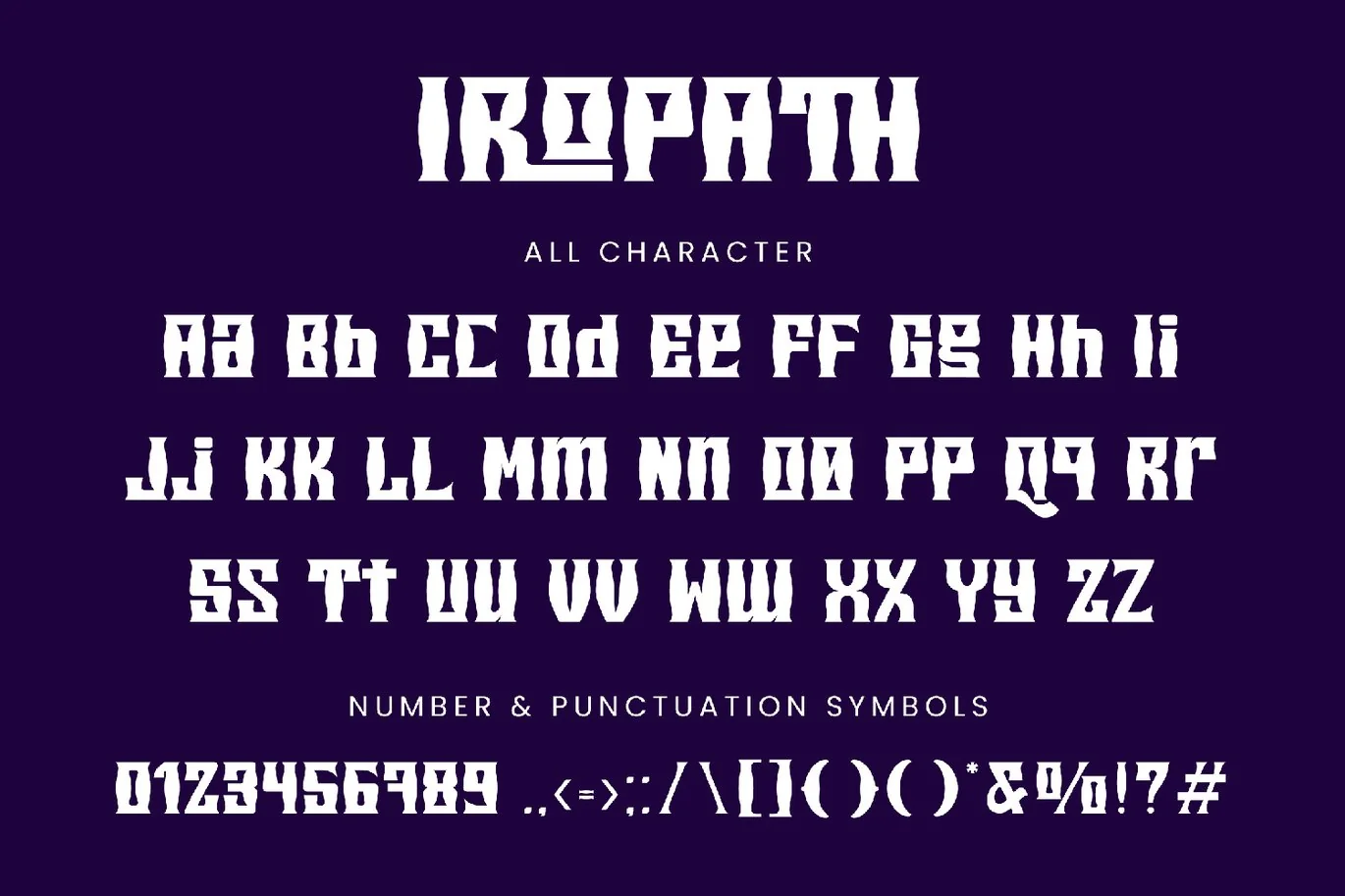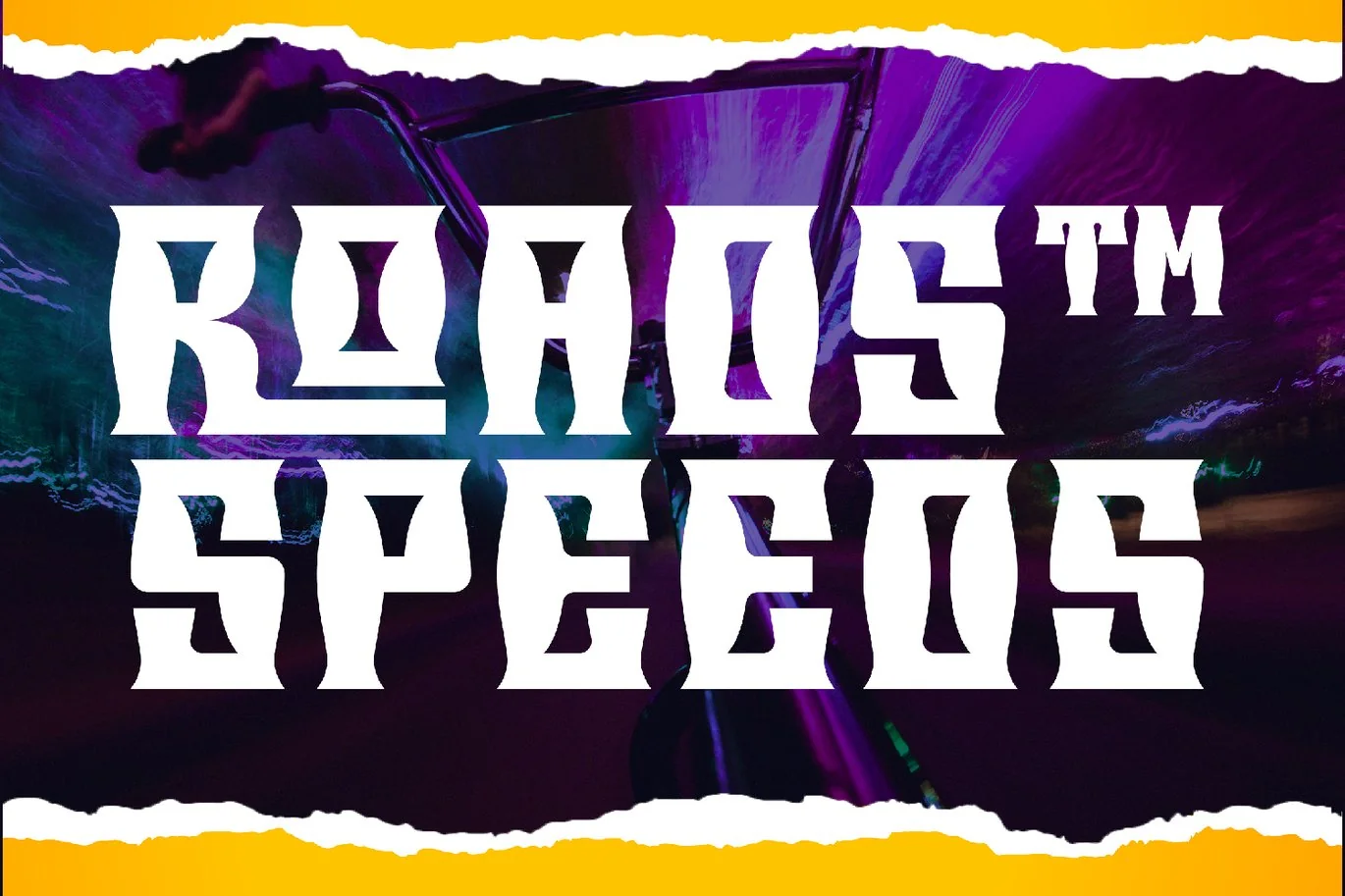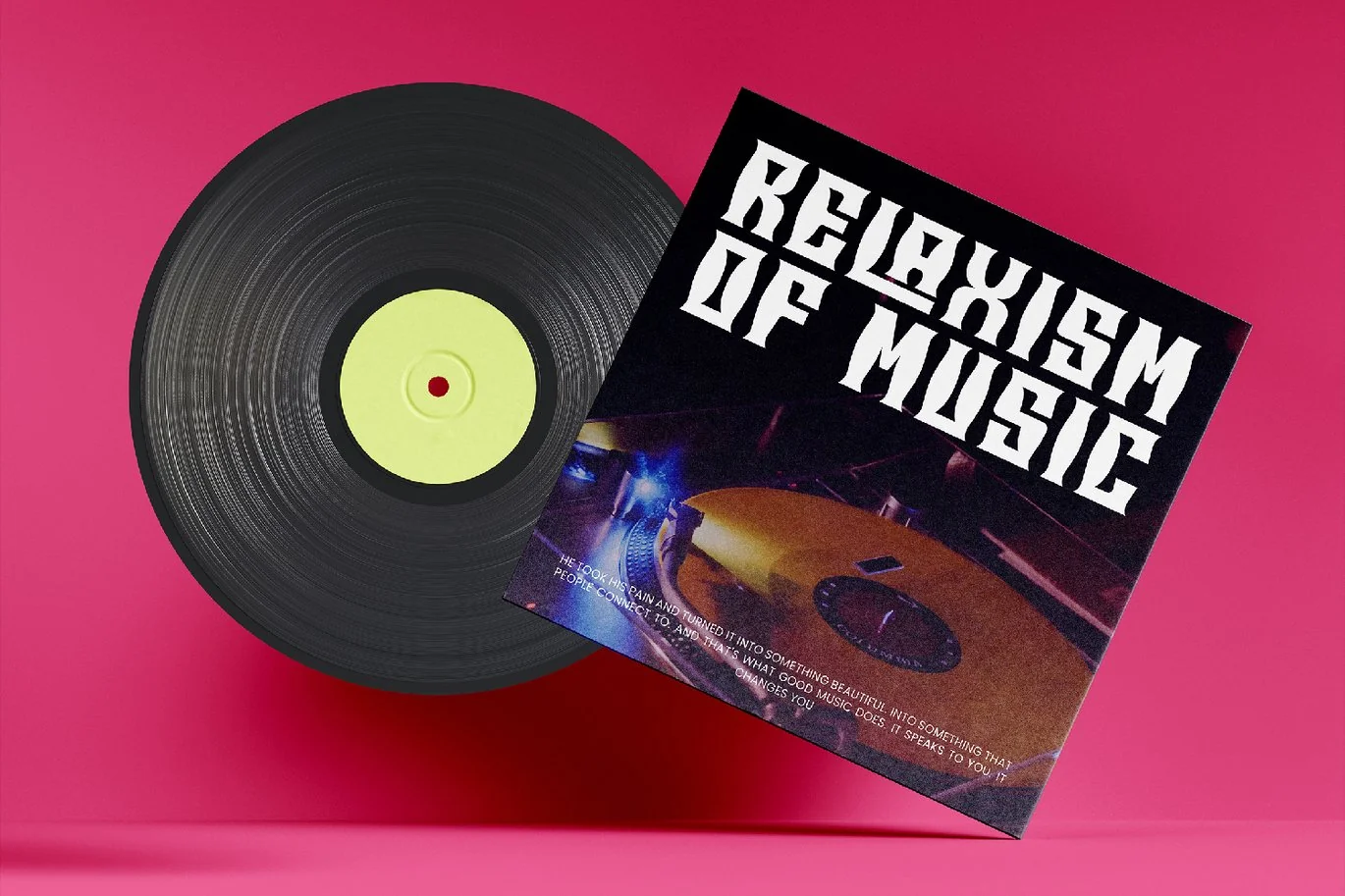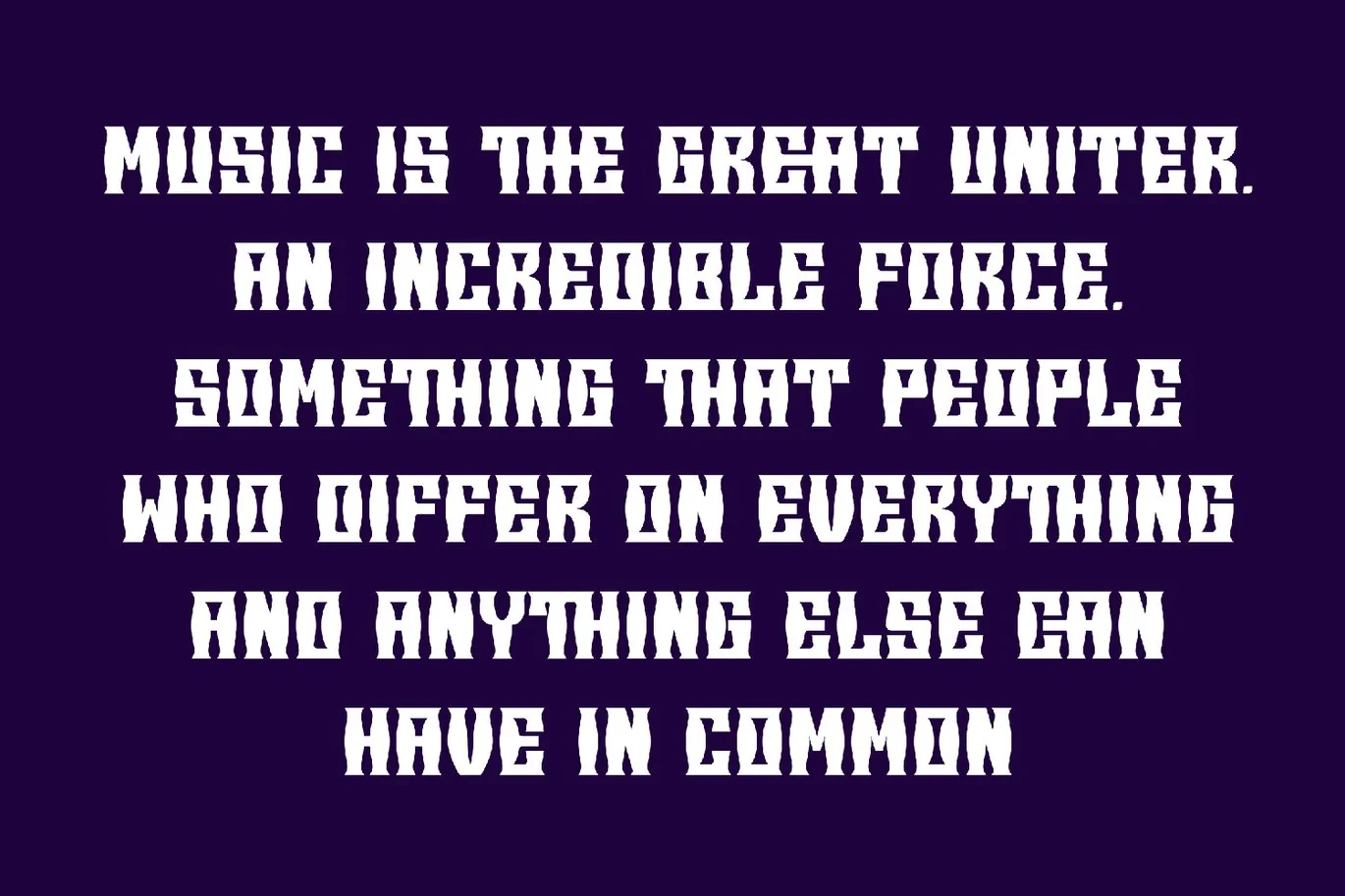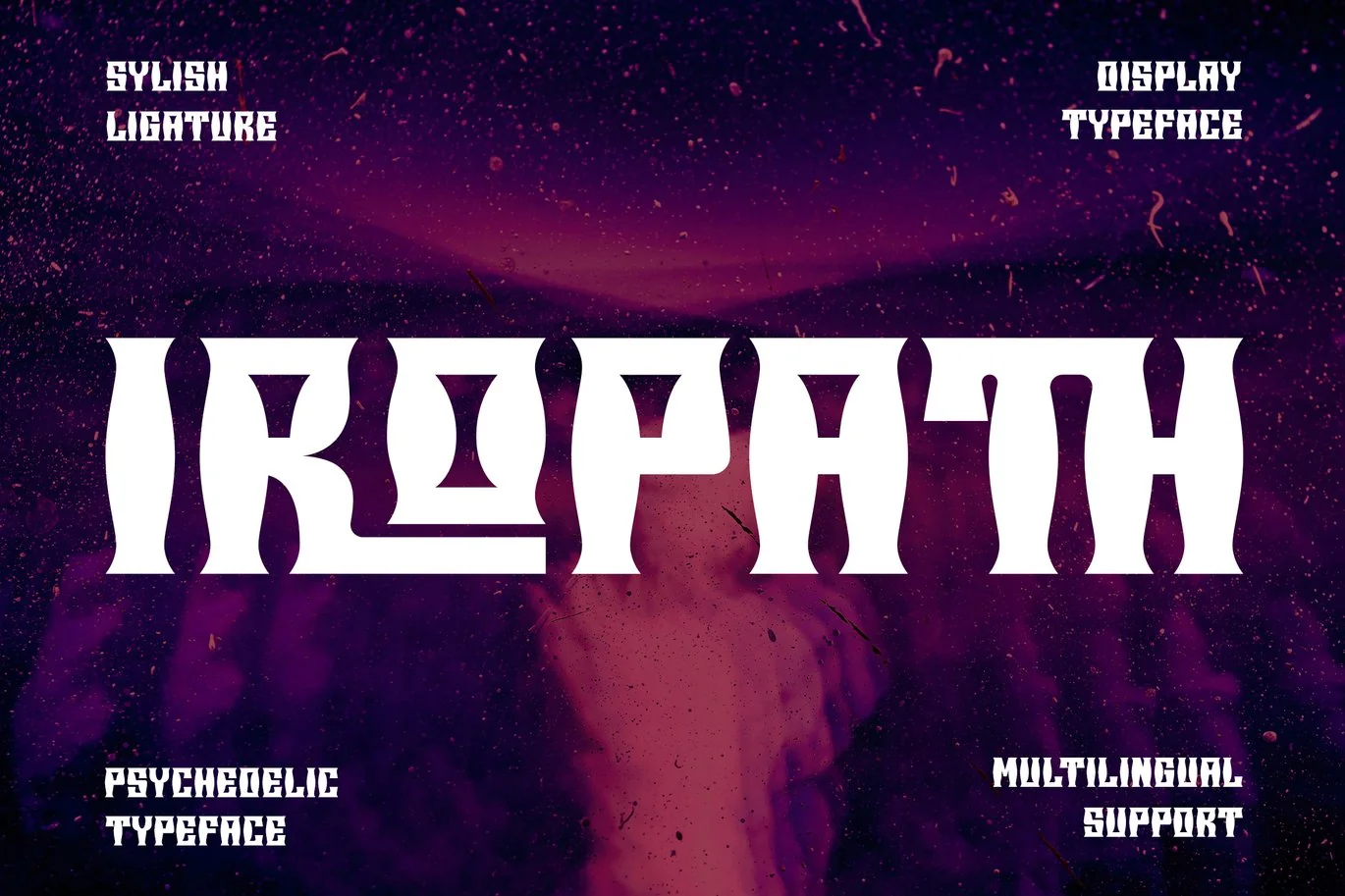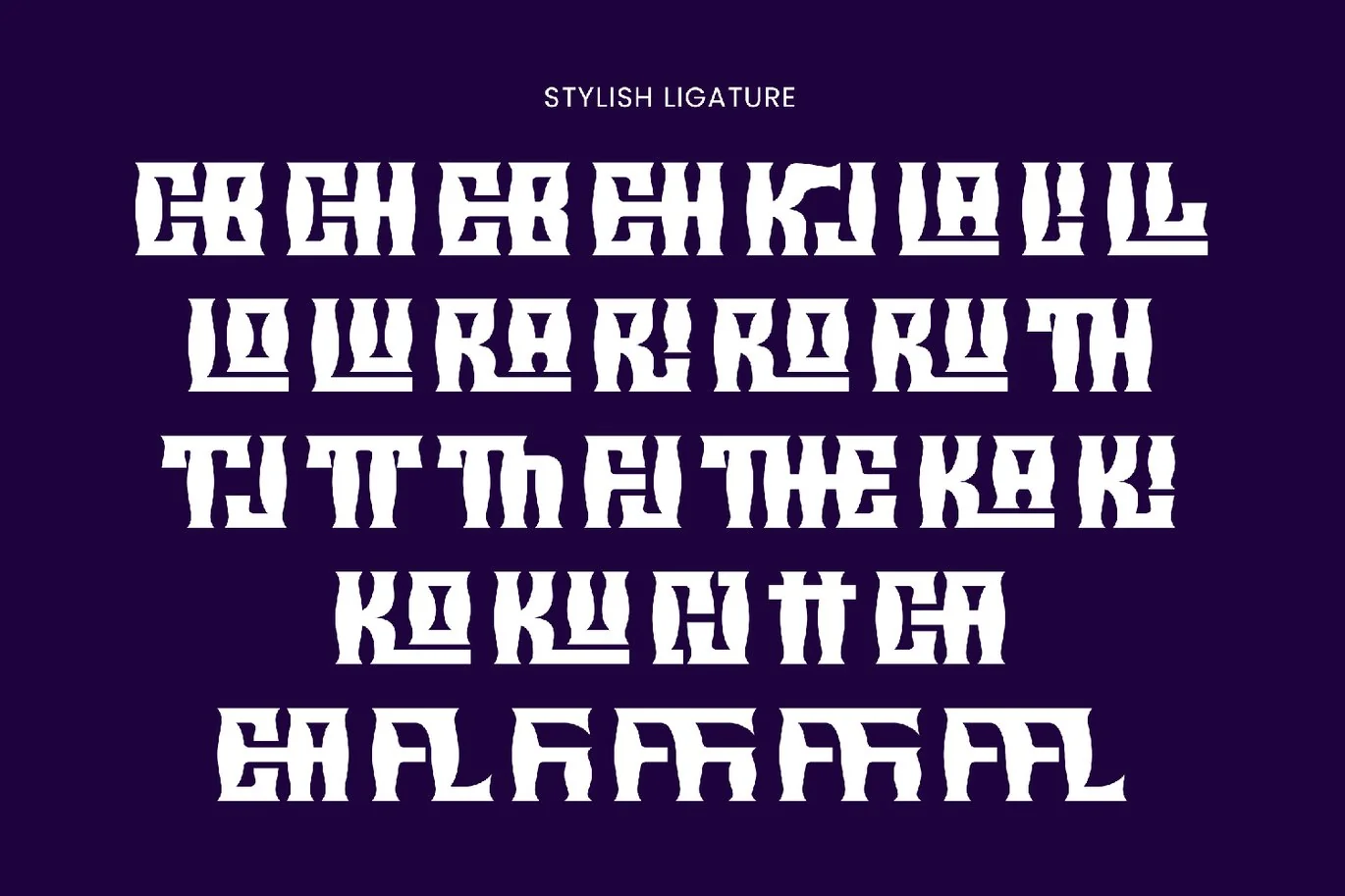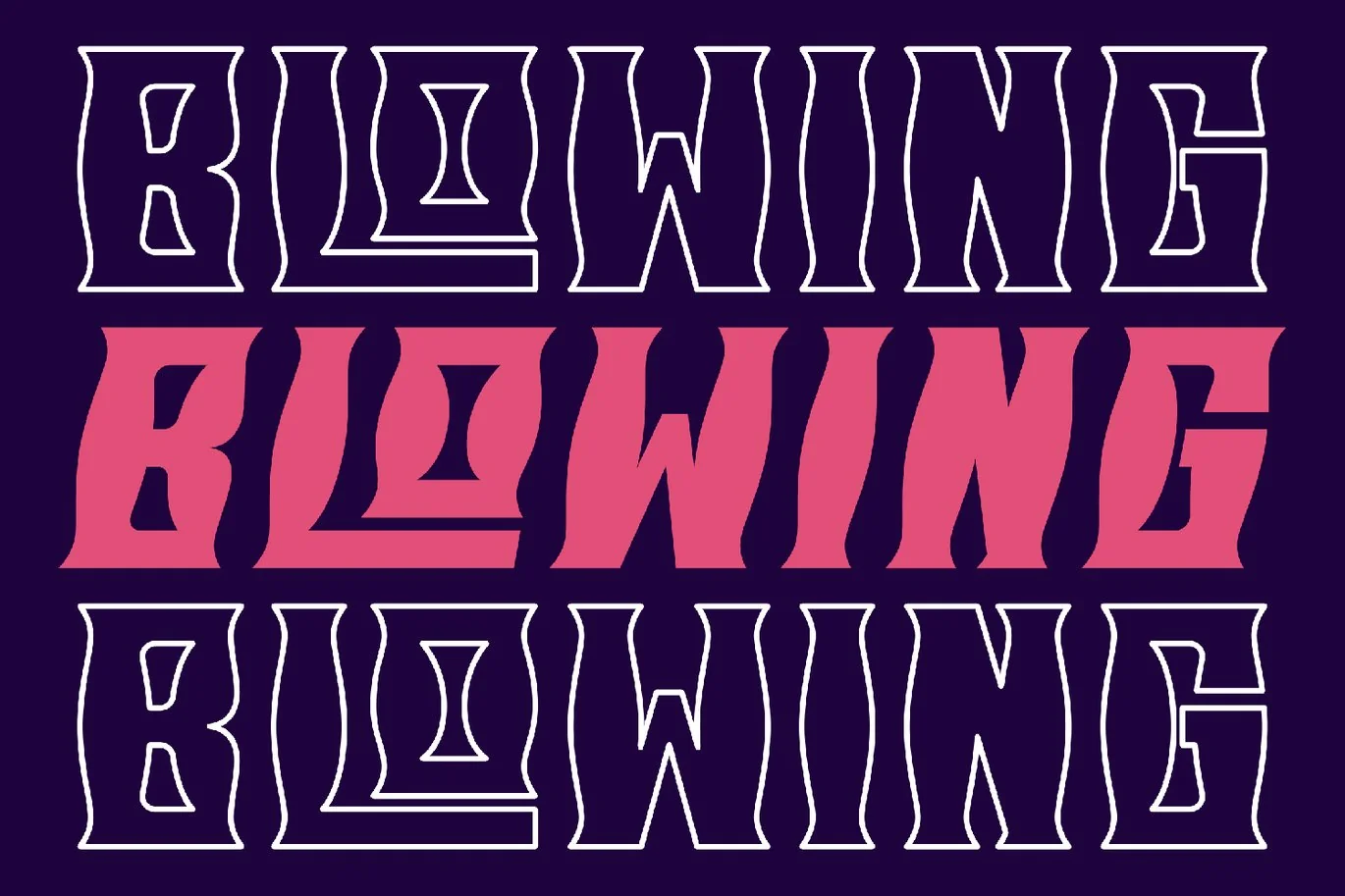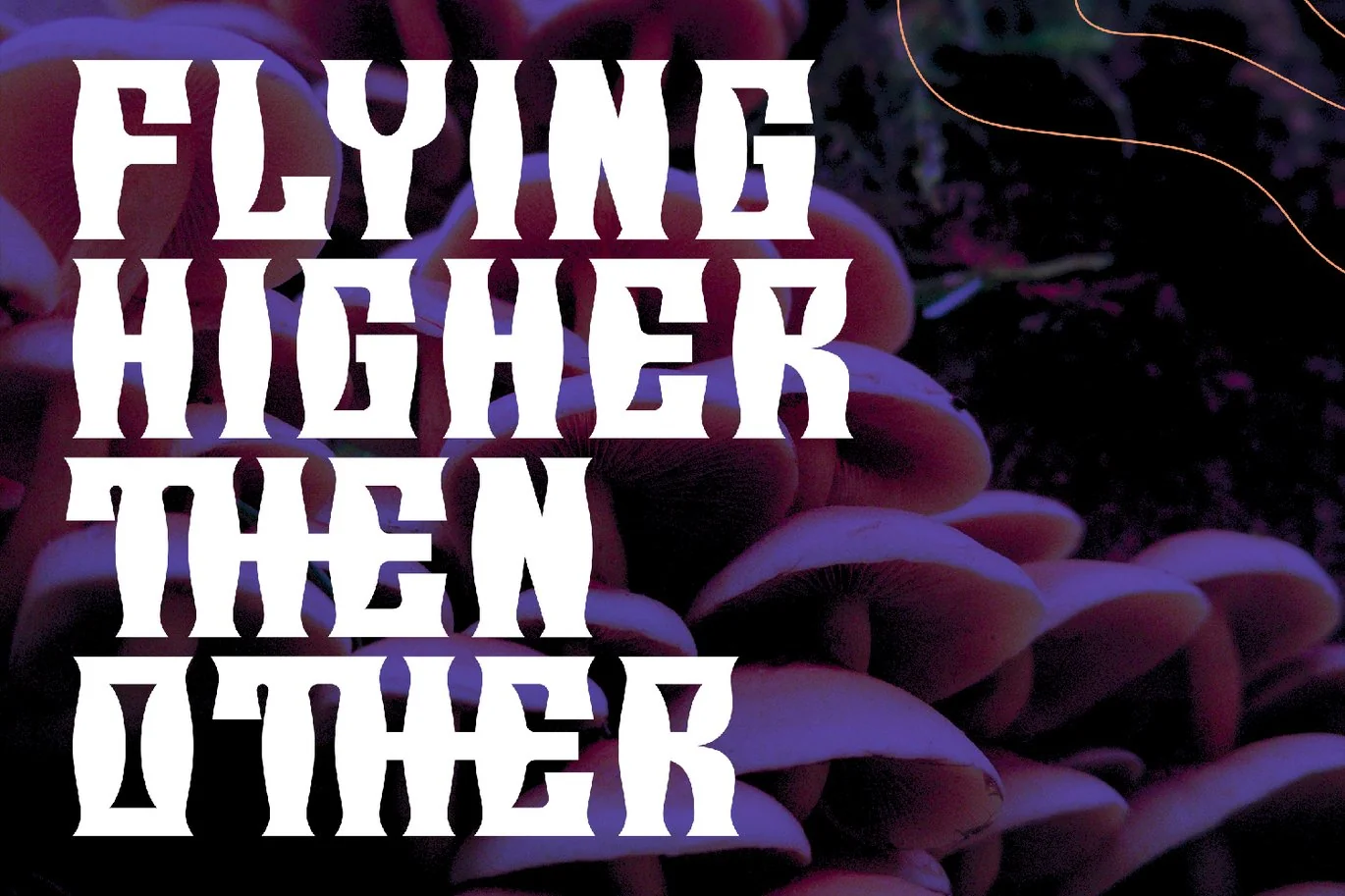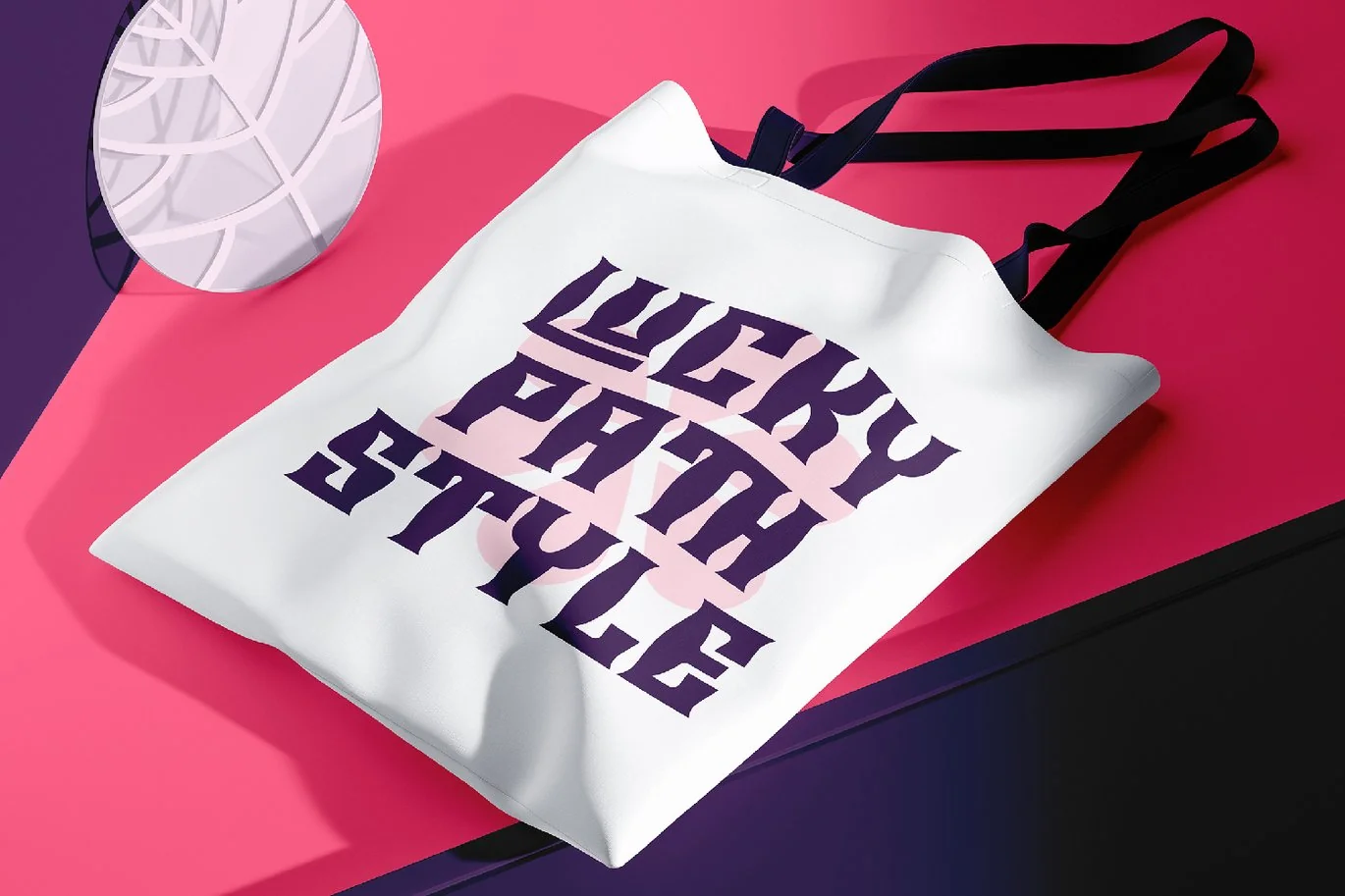
Iropath – Psychedelic Typeface Font
Iropath – Psychedelic Typeface Font contains a lowercase, uppercase, symbol, and also supports multi-language. There’s a lot of ligature in this font. Iropath – Psychedelic Typeface Font also comes with ligatures, stylistic alternates, and many more.
this font is suitable for fashion, branding, catalog, and other designs that you want.